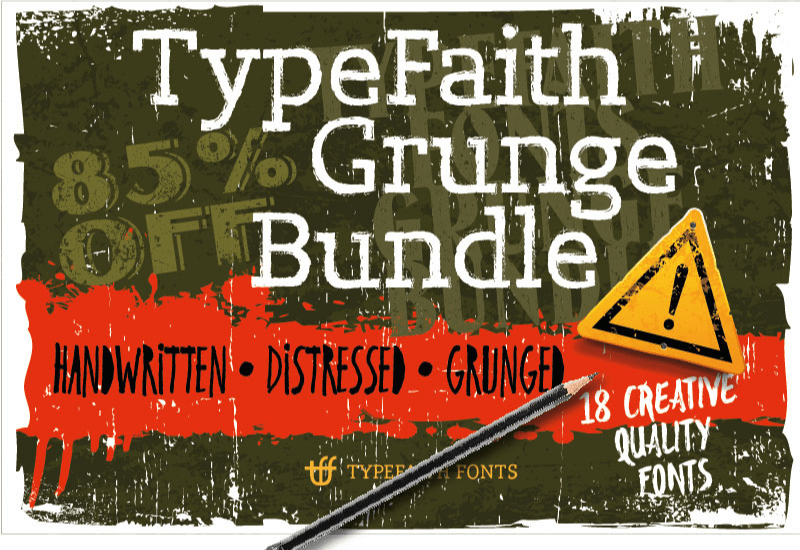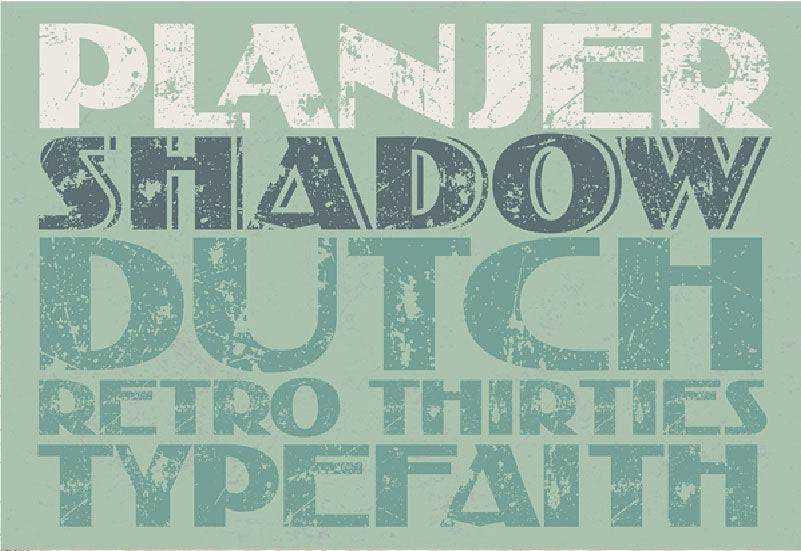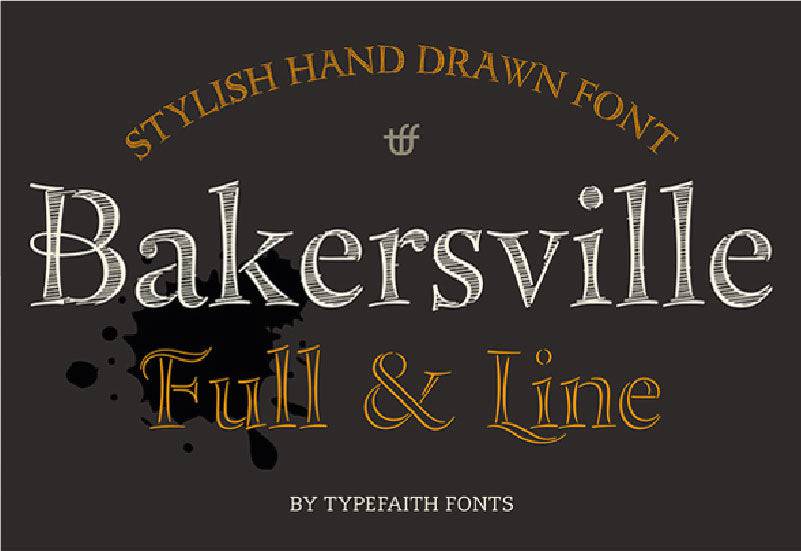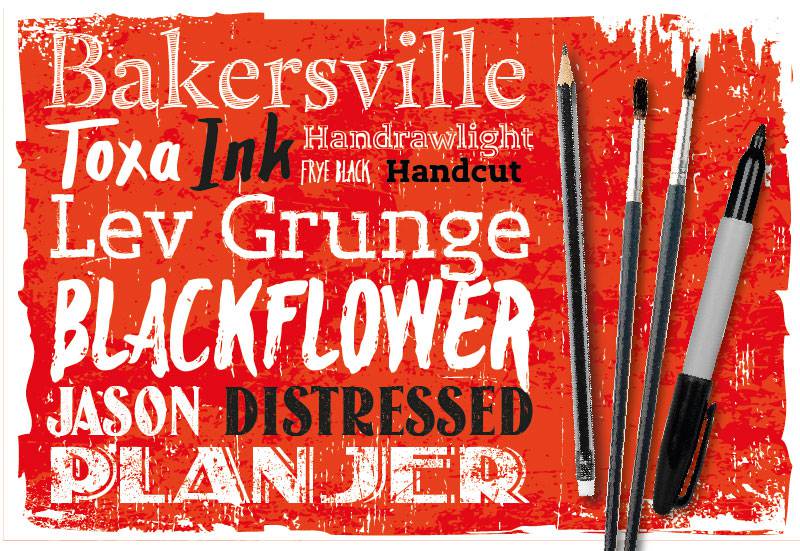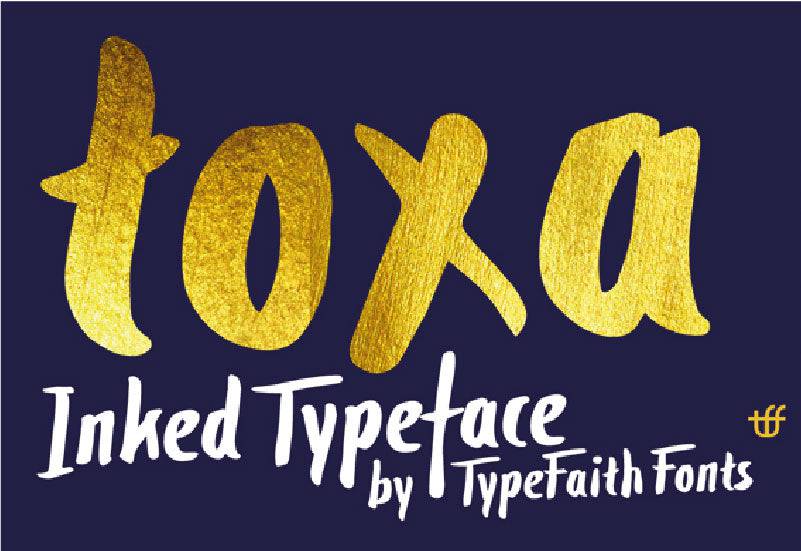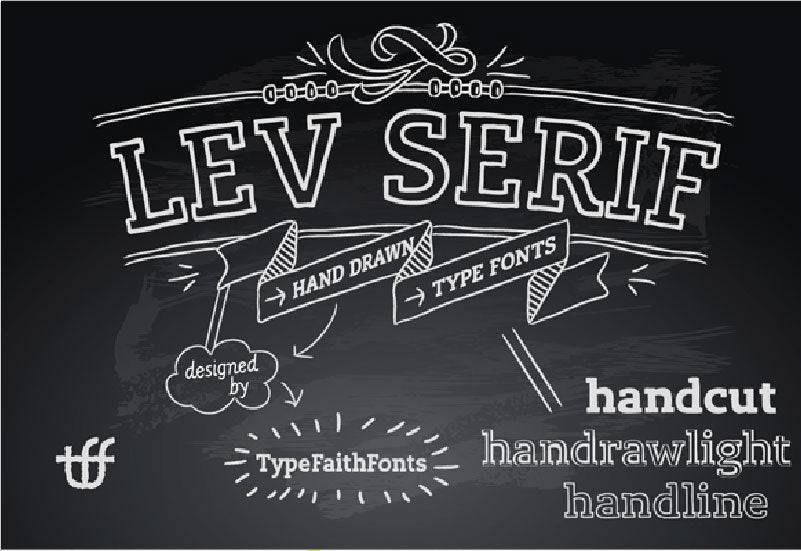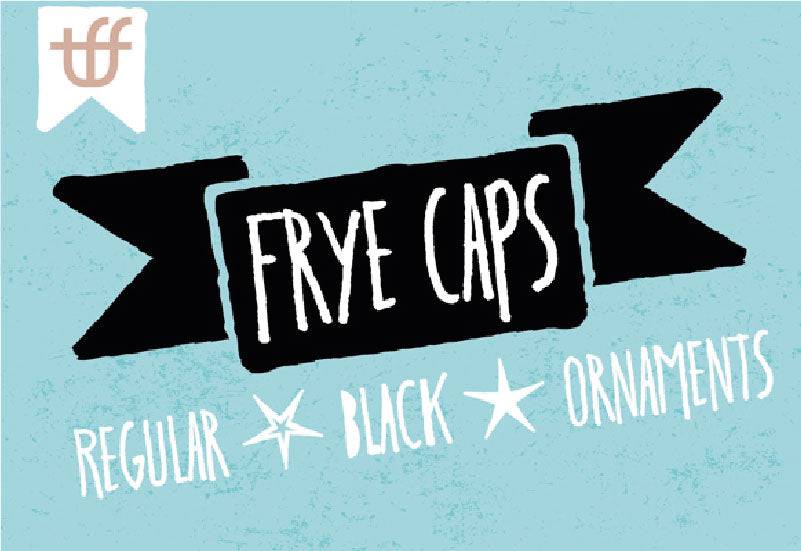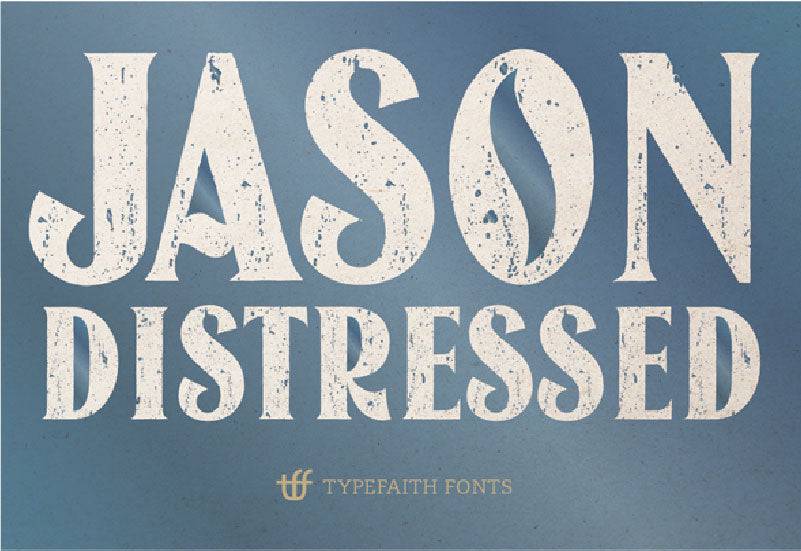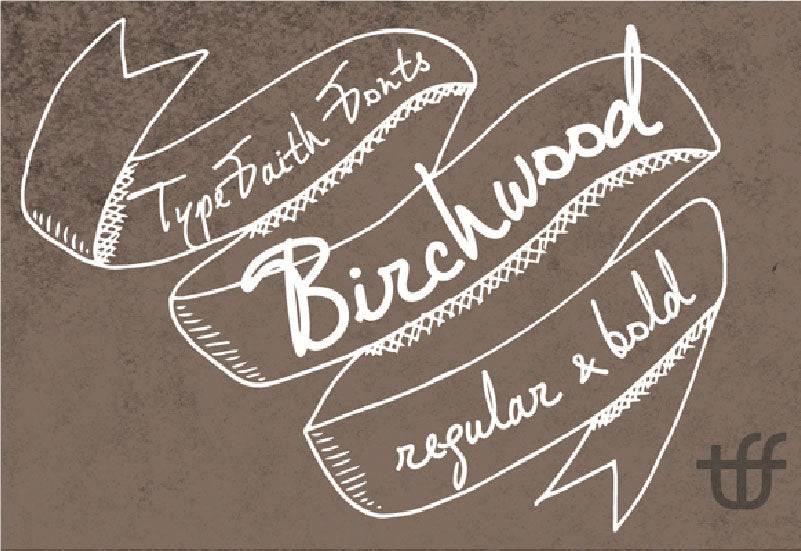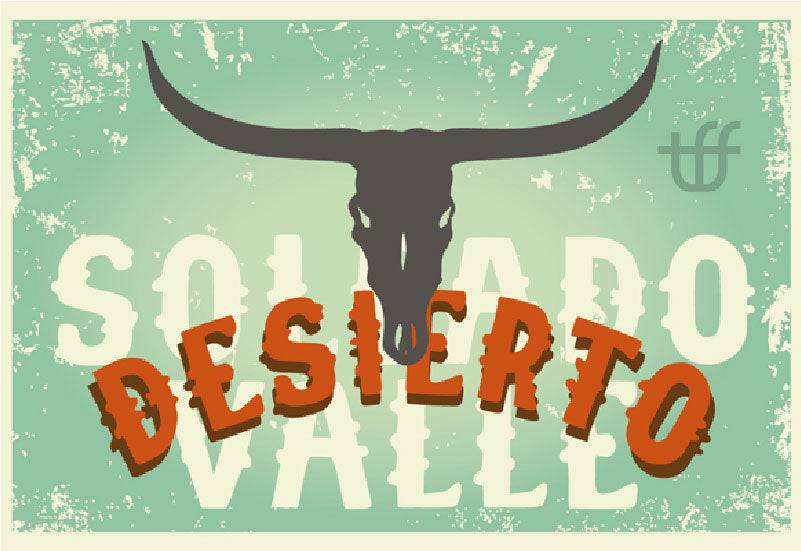
Give your font library a modern-day lift with this fantastic Script Fonts Bundle that features 8 creative and grunge vintage font families!
That’s a total of 18 unique custom fonts done up in a retro, vintage or grunge style.